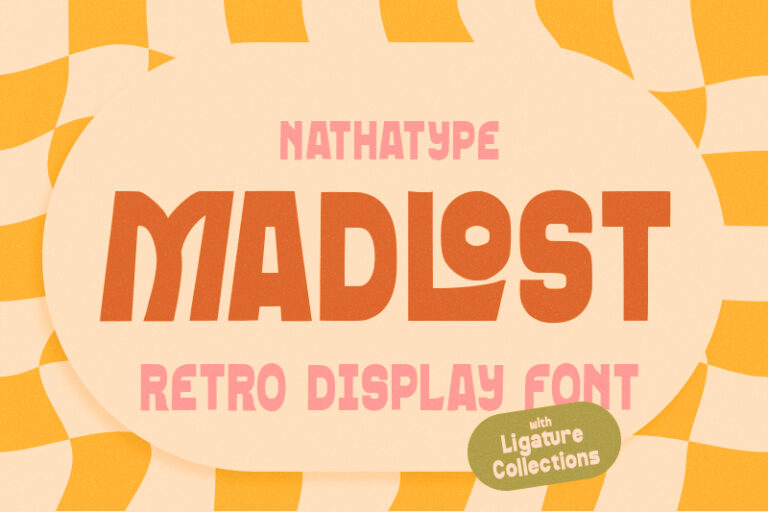
Madlost is a retro-inspired display font. Crafted with a fairly thick weight and relatively low contrast, this font delivers a strong, confident appearance while maintaining a smooth, cohesive look. Madlost captures the essence of classic retro lettering and reimagines it for modern creative use, making it a perfect choice for designers who want nostalgic style with contemporary versatility. In addition, enjoy the features here.
- Ligatures
Madlost fits in logos, quotes, branding, posters, and many more designs. Find out more ways to use this font by taking a look at the font preview.